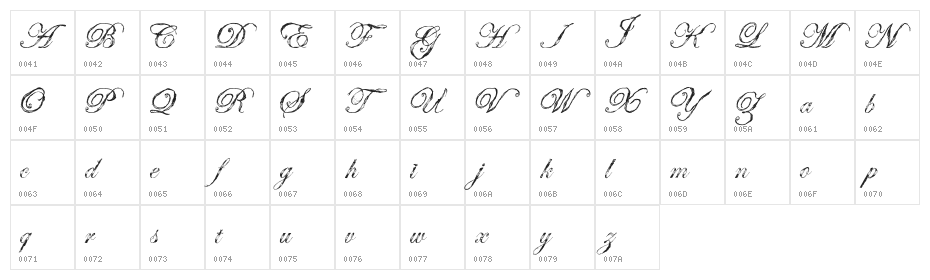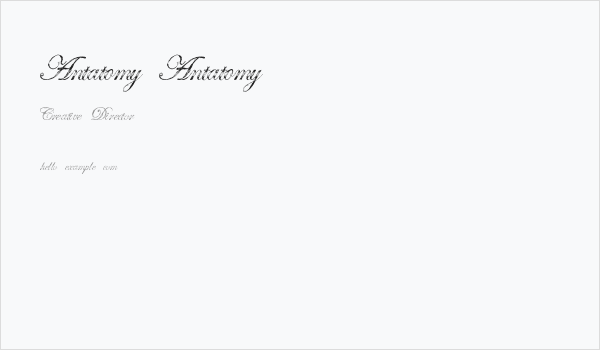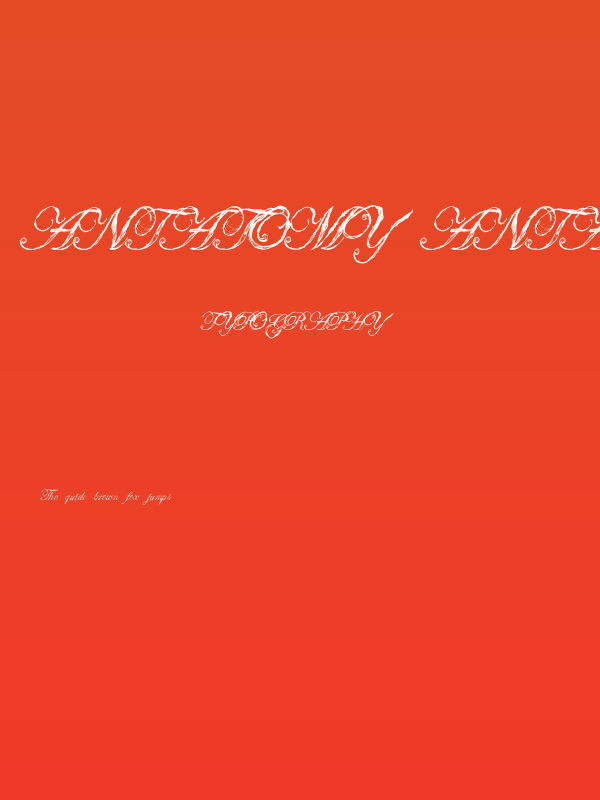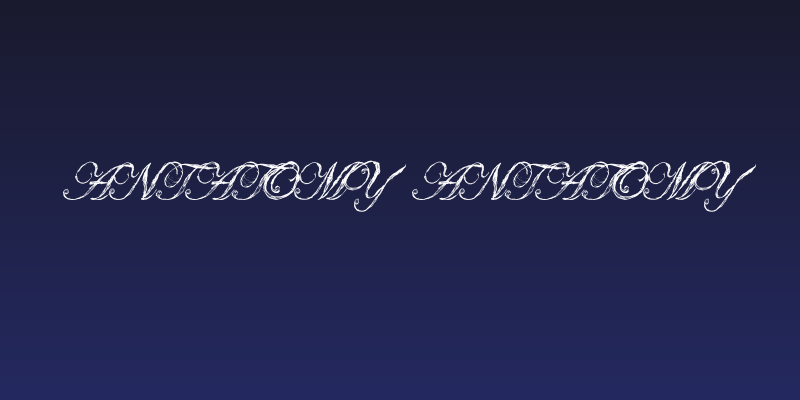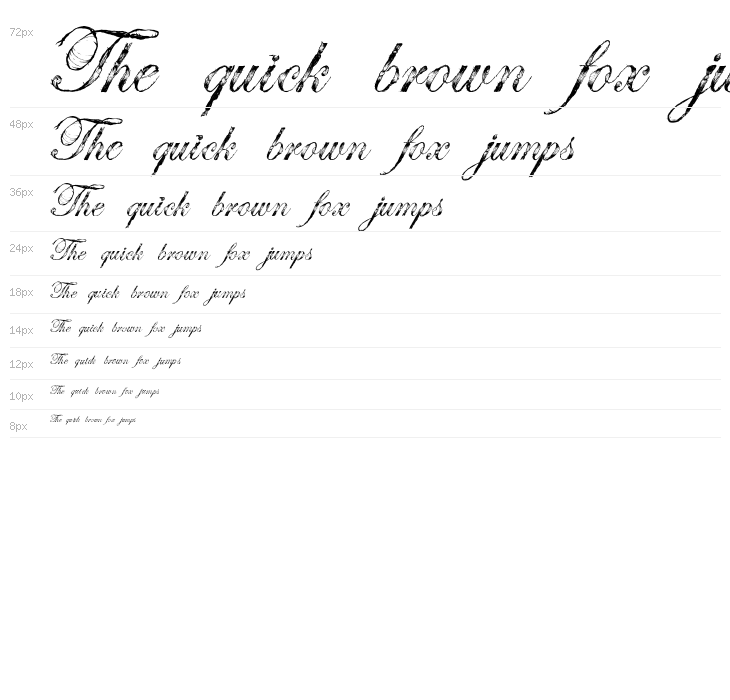
Antatomy Font
Antatomy Description
This font features an elegant, cursive style with a hand-drawn appearance. The letters are intricately designed with flourishes and loops, giving them a sophisticated and artistic look. The strokes vary in thickness, adding a dynamic and textured feel to the text. The uppercase letters are particularly ornate, while the lowercase letters maintain a consistent flow. This font exudes a sense of classic elegance and charm, making it suitable for formal and decorative applications.
| Proposed Projects | Ideal for wedding invitations, greeting cards, branding, and decorative headings. |